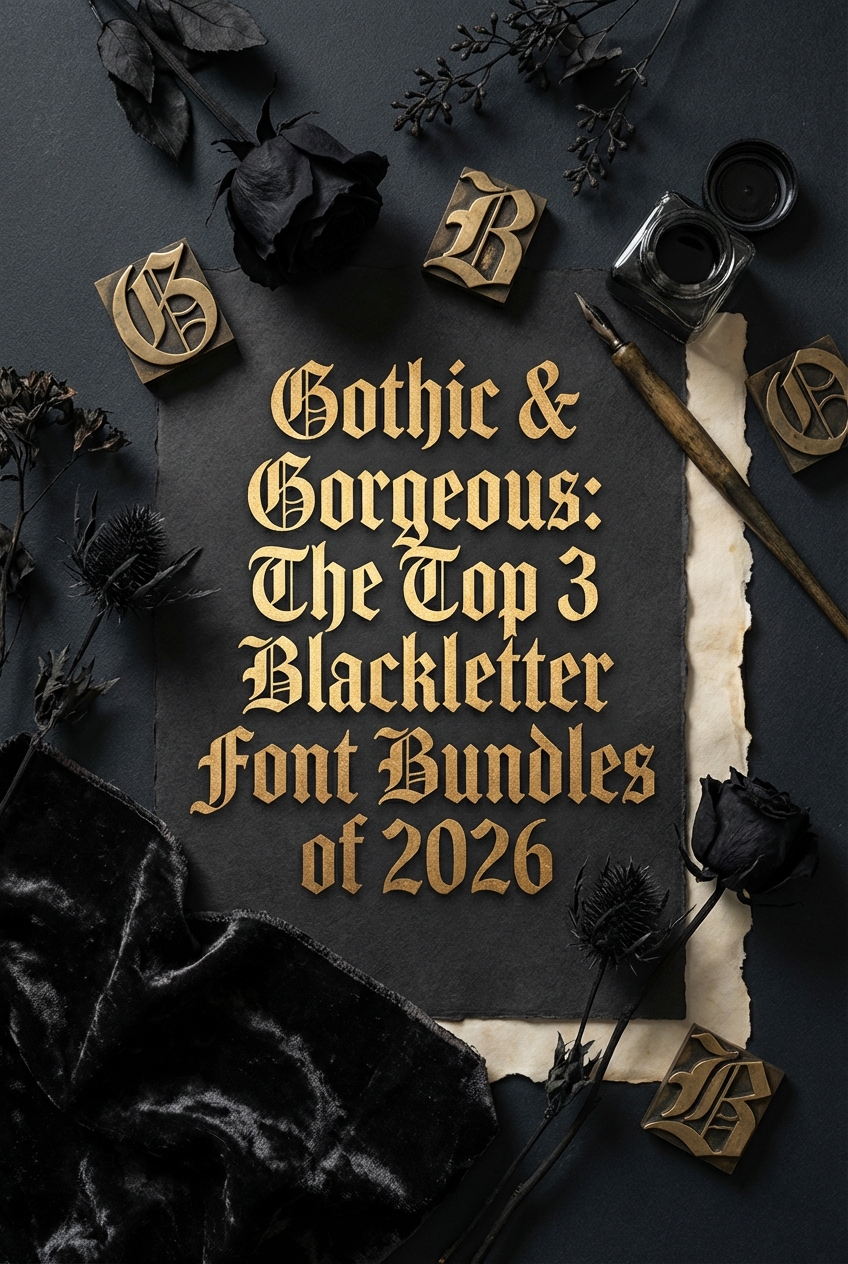
Once confined to historical manuscripts, Blackletter fonts are storming the design world in 2026 with unapologetic boldness. This dramatic resurgence is fueled by the rise of ‘gothic-core’ and maximalist aesthetics, where designers and DIY crafters alike are seeking typefaces that make a powerful statement. From edgy streetwear brands to bespoke wedding invitations, the intricate and commanding presence of a good Blackletter font is undeniable. That’s why we’ve scoured the market to find the most popular and versatile Blackletter font bundles available right now. These curated collections offer incredible value, providing a full arsenal for your most ambitious projects.
1. Creative Font Collection Bundle (by Viaction Type.Co)
Creative Font Collection Bundle (by Viaction Type.Co) If you are looking for a typographic arsenal that blends raw, gothic energy with modern design versatility, this bundle is an absolute treasure trove. While it boasts an incredible range of styles from sleek sans serifs to elegant scripts, its collection of blackletter fonts is the dark star of the show, offering a rich tapestry of historical weight and contemporary edge. This isn’t just a collection; it’s a complete branding and design workshop packed into a single, unbelievably affordable download, ready to infuse your projects with a distinctive, handcrafted character.
- A massive and diverse library of 85 fonts across 27 families, including a strong selection of high-impact blackletter and display styles.
- Includes a mix of clean sans serifs, elegant scripts, and sturdy slab serifs for building complete typographic hierarchies.
- Comes packed with bonus vintage badge and illustration templates to accelerate your creative workflow.
- Creating striking brand identities for distilleries, tattoo parlors, apparel companies, and boutique brands seeking a bold aesthetic.
- Designing authentic-looking merchandise, posters, and packaging with a vintage or gothic feel.
- Developing unique editorial layouts and web headlines that demand immediate attention.
2. Victorian Style & Decorative Serif Font Bundle (by StringLabs)
Victorian Style & Decorative Serif Font Bundle (by StringLabs) is an evocative collection that masterfully channels historical grandeur for the modern creator. This bundle is a veritable treasure trove, packing 21 distinct fonts that range from severe, angular blackletter to ornate, decorative serifs, all unified by a deeply vintage aesthetic. It provides a comprehensive toolkit for projects that demand a voice of dark elegance and timeless sophistication. The sheer variety ensures that whether you’re designing a mysterious logo, a classical book cover, or an edgy apparel graphic, you have the perfect typographic instrument to make your work look both outstanding and cool.
- An expansive library of 21 distinct fonts, offering a complete typographic toolkit.
- A curated blend of Victorian, blackletter, and decorative serif styles for versatile application.
- Includes unique stylistic alternates and glyphs to add bespoke, handcrafted details to your work.
- Sophisticated branding for distilleries, tattoo studios, and boutique apparel lines.
- Dramatic book covers, cinematic posters, and atmospheric album artwork.
- Ornate product packaging that demands a touch of historical elegance and mystique.
3. The Mega Blackletter Font Bundle (by StringLabs)
The Mega Blackletter Font Bundle (by StringLabs) channels a rich, historical aesthetic, blending the stark authority of traditional gothic script with the ornate elegance of Victorian typography. This collection of 24 fonts feels less like a simple asset pack and more like a curated library of powerful, statement-making type. From the razor-sharp edges of classic blackletter to more fluid, almost calligraphic interpretations, each font provides a distinct personality, allowing designers to infuse their work with a sense of timeless drama and undeniable cool. It’s a versatile toolkit for projects that demand a bold voice rooted in historical depth but executed with a fresh, modern sensibility.
- A comprehensive collection of 24 distinct fonts covering blackletter, gothic, and Victorian styles.
- Includes numerous stylistic variations, offering flexibility for custom logos and lettering.
- A cohesive vintage aesthetic that adds a layer of authenticity and impact to any design.
- High-quality letterforms with sharp details suitable for both digital and print applications.
- Branding and logos for apparel, tattoo studios, and heavy metal bands.
- Eye-catching packaging design for craft beer, spirits, and artisanal products.
- Editorial headlines, book covers, and event posters that require a strong, dramatic mood.
- Creating authentic vintage-inspired signage and print collateral.
Beyond ‘Gothic’: A Quick Guide to Blackletter Styles
The term “Blackletter” is an umbrella for several distinct historical scripts. While your font bundle might mix and match elements, knowing the core styles can inspire your design choices. The four main families you’ll encounter are:
- Textura: The most calligraphic and what many people picture first. It’s tall, narrow, and angular, resembling a woven texture (hence the name). Best for: Formal documents, certificates, and traditional “Old English” looks.
- Fraktur: A German style that became incredibly popular. It’s defined by its “broken” curves, giving it a sharp yet slightly more fluid feel than Textura. Best for: High-impact branding, beer labels, and anything with a powerful, historical edge.
- Schwabacher: A rounded, more “humanist” form of Blackletter with more curves and less rigidity. It offers better legibility than many of its cousins. Best for: Projects needing a gothic feel without sacrificing readability, like book covers or posters.
- Rotunda: An Italian and Spanish variant that is the most rounded and open of all the Blackletter styles, making it significantly easier to read. Best for: Headings that need to feel both historic and approachable.
Pro Tip: Mastering Legibility and Pairing
The biggest challenge with Blackletter fonts is their poor readability in long-form text. Their dense, intricate letterforms are designed for impact, not for paragraphs. To use them effectively, follow these two golden rules:
- Rule of Roles: Use Blackletter exclusively for headlines, logos, short titles, or single-word statements. For your body copy, subheadings, and captions, pair it with a clean, simple font. A neutral sans-serif (like Helvetica or Montserrat) or a classic serif (like Garamond) creates a perfect contrast, allowing the Blackletter font to shine without overwhelming the reader.
- Give It Space: Many Blackletter fonts benefit from slight increases in letter-spacing (tracking), especially when set in all caps. This prevents the complex characters from visually crashing into each other. Don’t be afraid to manually adjust the kerning (the space between specific letter pairs) for a truly polished, professional look.
Unlock Your Font’s Full Potential: Using Glyphs & Alternates
Modern font bundles are often packed with powerful OpenType features that go beyond the standard A-Z characters. These extras are what separate amateur from pro-level typography. Look for them in your design software’s Glyphs or Typography panel. Key features to explore include:
- Stylistic Alternates: Different versions of a single letter. You might find a more ornate capital ‘A’ or a ‘t’ with a longer crossbar, allowing you to customize your text for a unique feel.
- Ligatures: Custom characters that combine two or more letters (like ‘fi’ or ‘st’) into a single, more fluid glyph. This is especially important in Blackletter for creating an authentic, hand-drawn look.
- Swashes & Flourishes: Exaggerated strokes and decorative elements that can be added to the beginning or end of words for extra dramatic flair. Use these sparingly for maximum impact!
Creative Project Fuel: Beyond the Obvious
While Blackletter is perfect for streetwear and fantasy-themed projects, its bold character can elevate many other concepts. Think outside the box and consider these less-common applications:
- Luxury Spirit & Craft Beer Labels: The historical weight of Blackletter can imply heritage, craft, and premium quality, making it perfect for high-end bottle and can design.
- Modern Tattoo & Flash Art: A clean, well-kerned Blackletter word or phrase makes for a powerful and timeless tattoo design. Use it as a base for your next flash sheet.
- Fine Dining & Speakeasy Menus: Create an atmosphere of exclusive, old-world sophistication. A Fraktur or Textura font for dish names on a thick, textured paper stock is pure elegance.
- Neo-Brutalist Web Design: Contrast the raw, functional aesthetic of brutalism with the ornate complexity of a Blackletter headline. This high-contrast pairing is unapologetically modern and bold.
In 2026, being bold is the new black, and these Blackletter font bundles are your ticket to creating unforgettable designs. Whether you’re a seasoned pro or a DIY enthusiast, incorporating these gothic-inspired typefaces will instantly elevate your work, adding depth, history, and an undeniably cool edge.